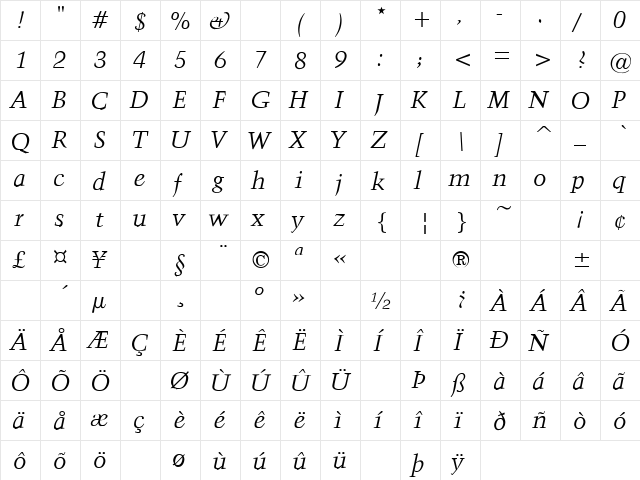
Cheesecake 4 Regular
Design Context for Cheesecake 4 Typeface
Cheesecake 4 is a composed and adaptable typeface that performs quietly and consistently across a wide range of design contexts.